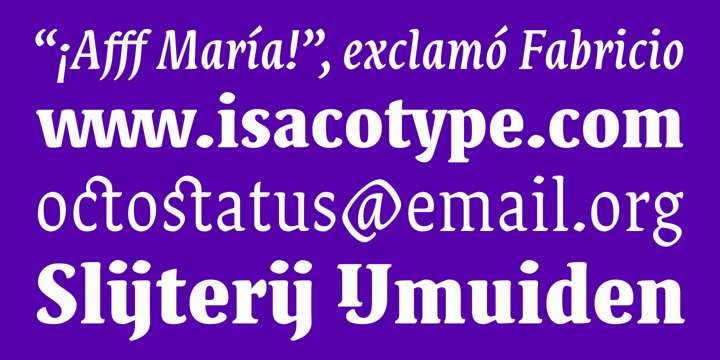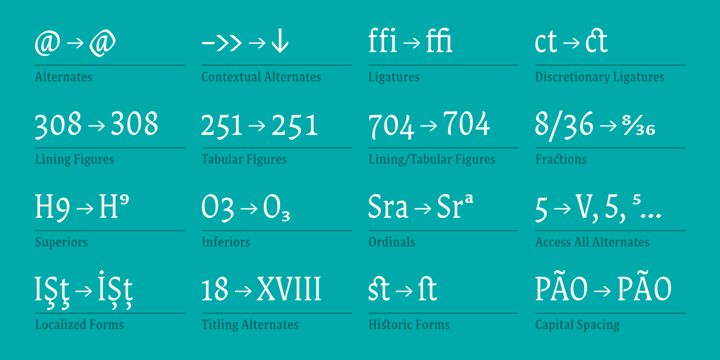
Destra
Font Family by Isaco Type
Destra is a contemporary, narrow serif family, suitable to save space and legible at small sizes. Its shapes are the result of a mix of styles. "Destra" is the Portuguese word for "right hand".
The font has several OT features - fractions, old style-, lining-, tabular numbers, superiors/inferiors, alternative glyphs, dozens of ligatures (standard + discretionary) and an exclusive feature to convert Arabic to Roman numerals up to 1000 (download the